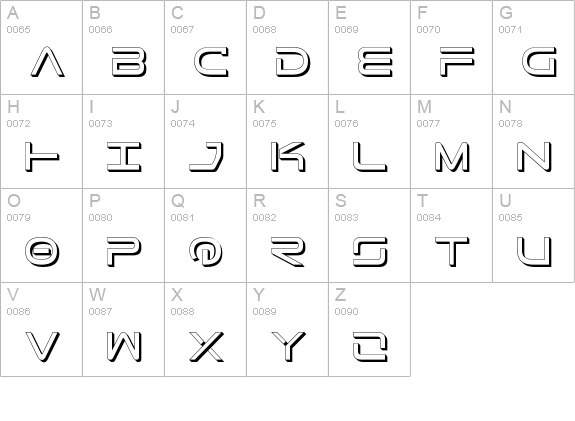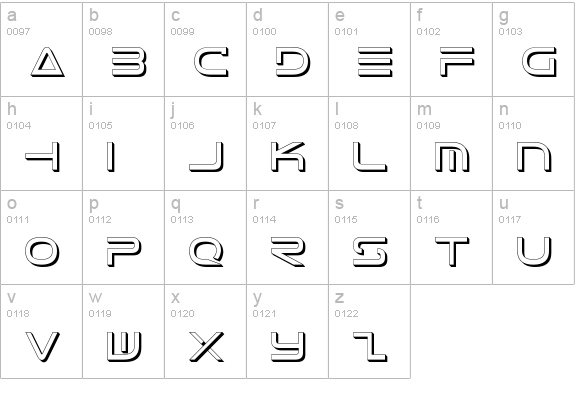
Tele-Marines Shadow Font Details
Introducing Tele-Marines Shadow Font, a stunning display typeface that perfectly captures the essence of strength, power, and mystery. This unique font is designed to make a bold statement and leave a lasting impression on any project it graces. Tele-Marines Shadow Font features a combination of sharp, angular lines and intricate shadows, creating a mesmerizing 3D effect. Its sleek and modern design makes it ideal for a wide range of applications, including logo designs, headlines, posters, and more. Whether you're designing for a futuristic sci-fi project or a cutting-edge tech brand, this font will effortlessly elevate your designs to new heights. But what truly sets Tele-Marines Shadow Font apart is its availability for free. That's right, this extraordinary font can be freely downloaded from FontsMarket.com. We believe that creativity should be accessible to all, and by offering this font for free, we are empowering designers and creators to bring their visions to life without any limitations. With Tele-Marines Shadow Font, you have the freedom to explore and experiment, creating eye-catching and visually striking designs that demand attention. Its versatility allows you to unleash your imagination and enhance any project, making it a must-have addition to your font collection. So don't miss out on this incredible opportunity to elevate your designs with Tele-Marines Shadow Font. Download it for free today at FontsMarket.com and embark on a creative journey that knows no boundaries.